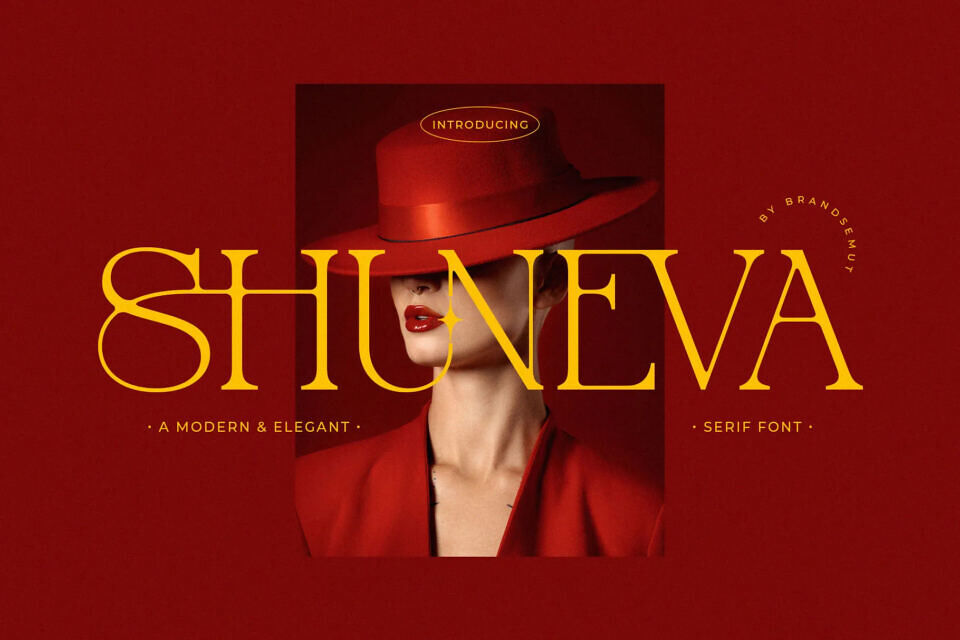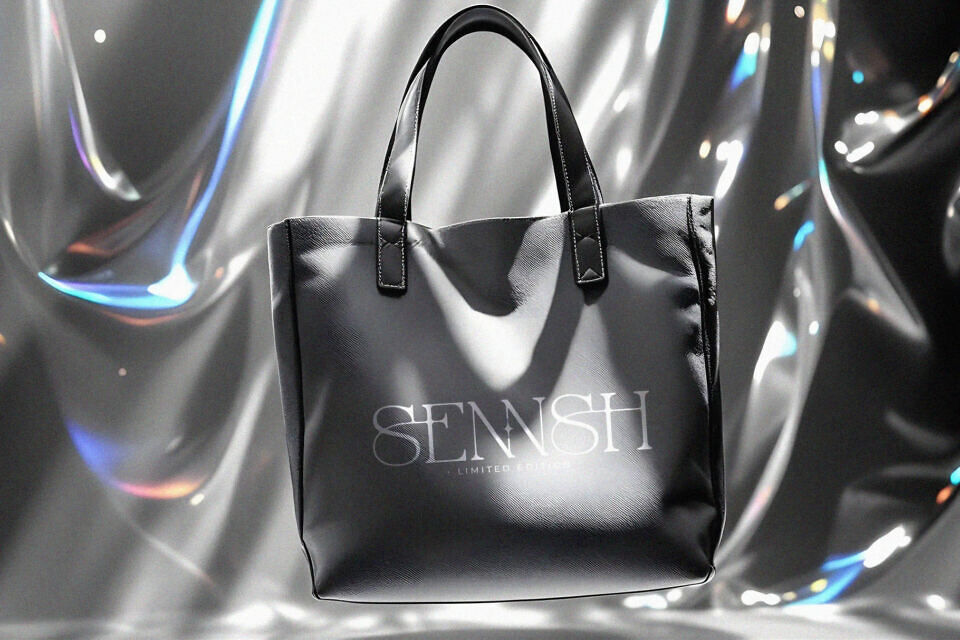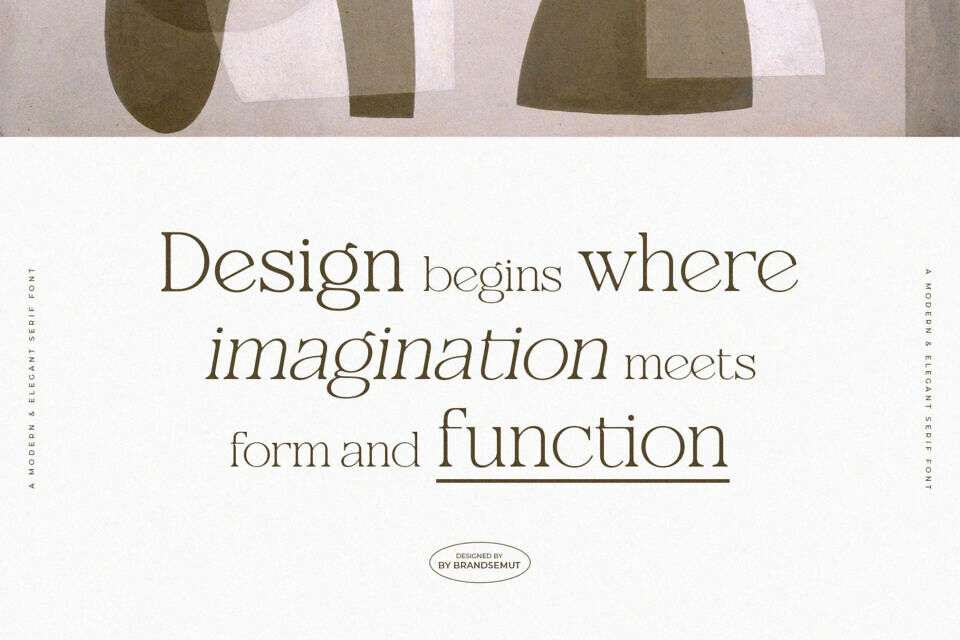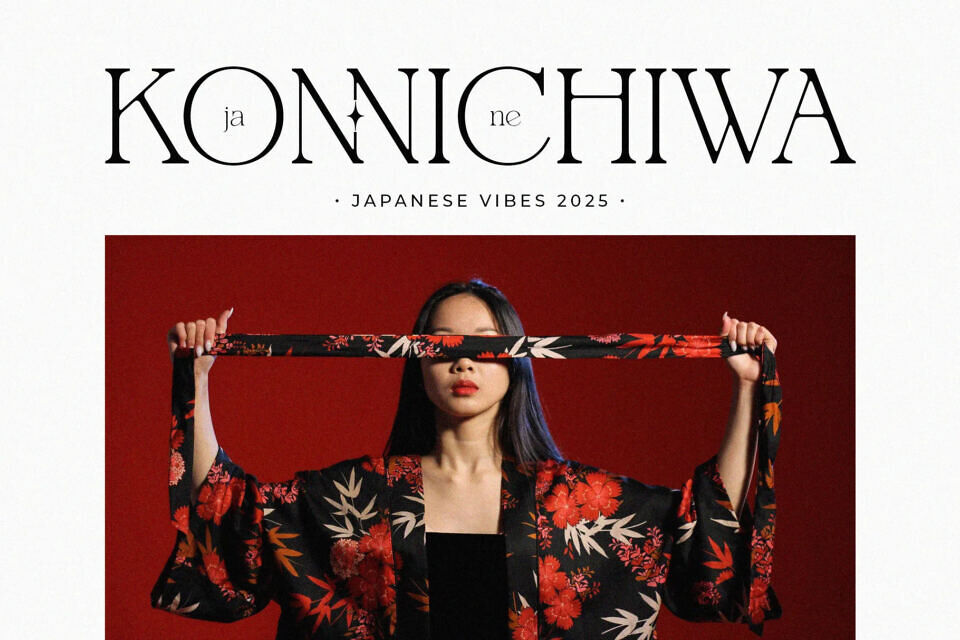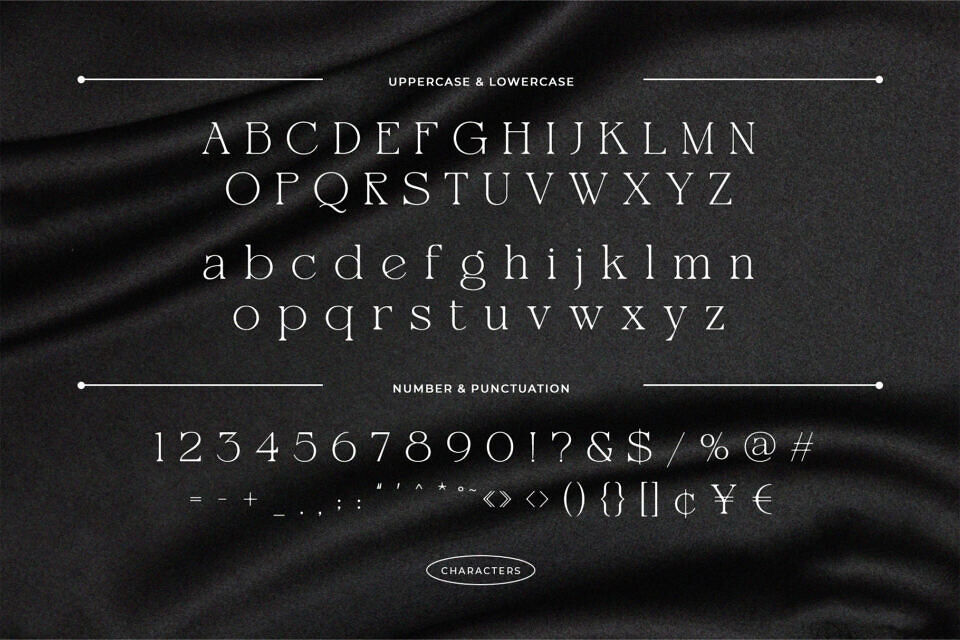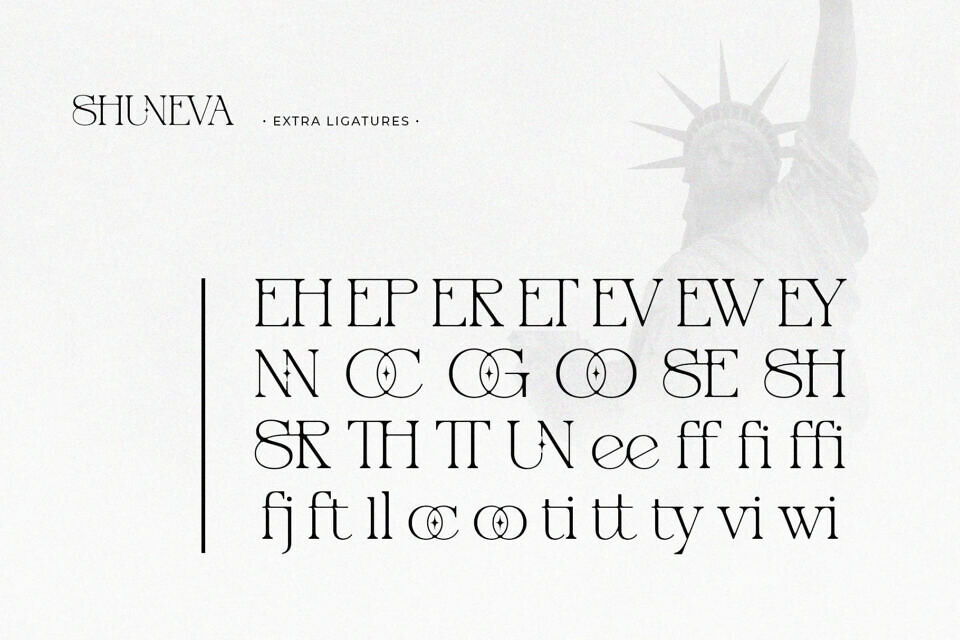
Shuneva Font
Shuneva is a modern and elegant ligature serif font crafted to bring sophistication, style, and timeless class into your design projects. Featuring refined letterforms, artistic ligatures, and sharp serif details, Shuneva is the perfect typeface for those who seek a bold, luxurious, and professional look.
With its stylish alternates and creative ligatures, Shuneva offers endless design possibilities—making it highly versatile for branding, editorial layouts, packaging, fashion, and digital projects. Its strong yet graceful structure ensures excellent readability while maintaining a premium and distinctive personality.